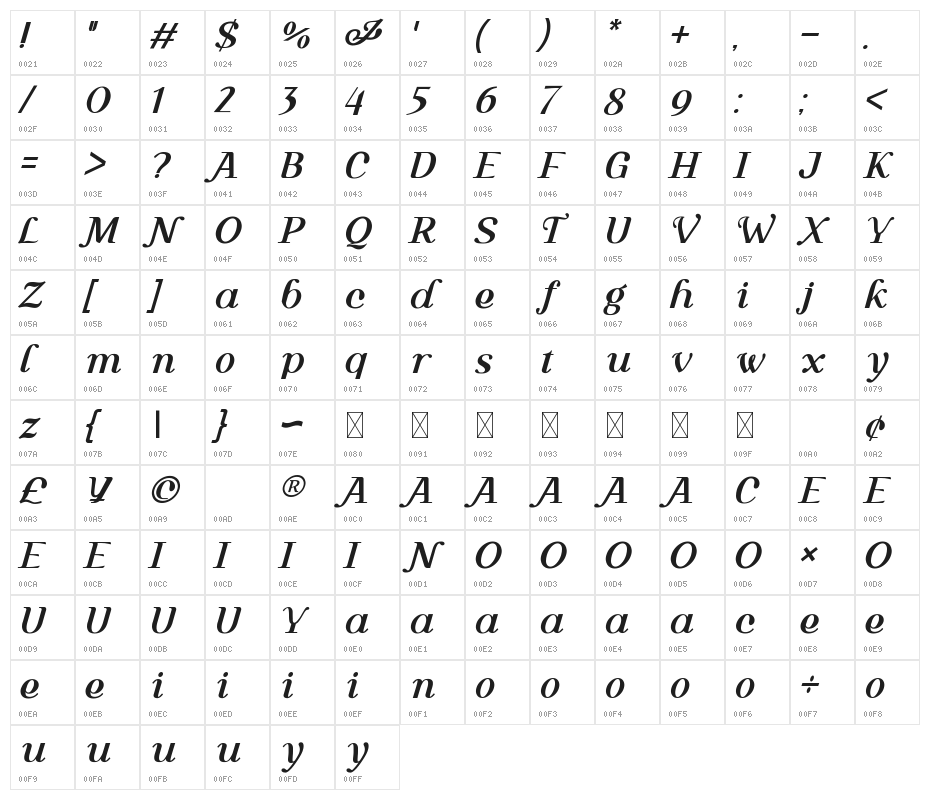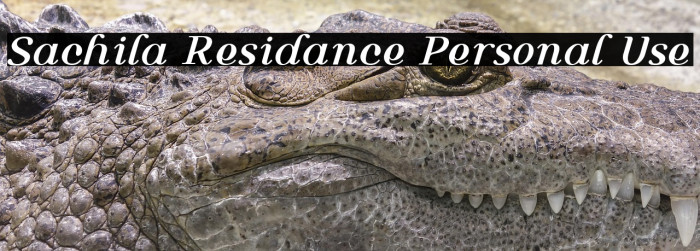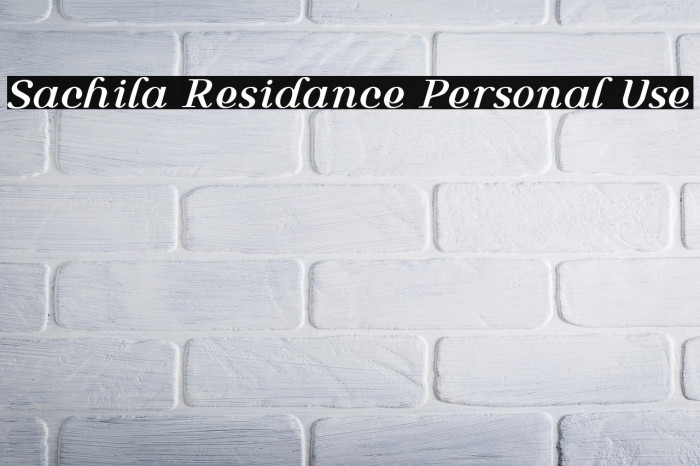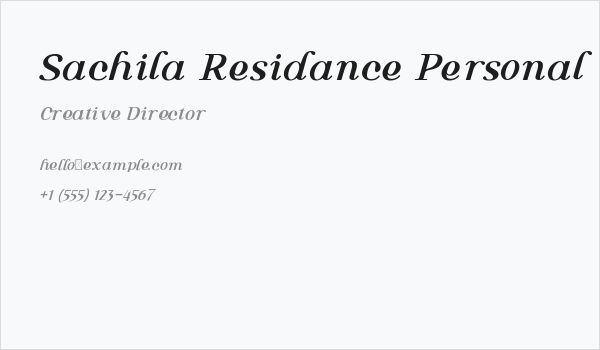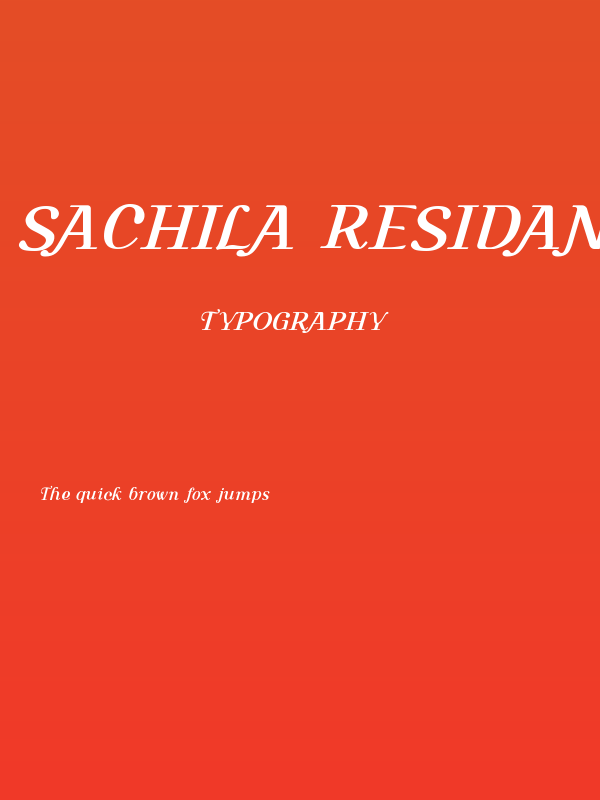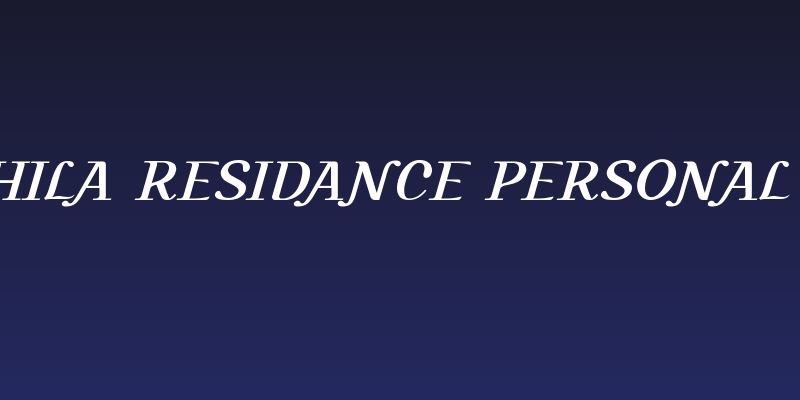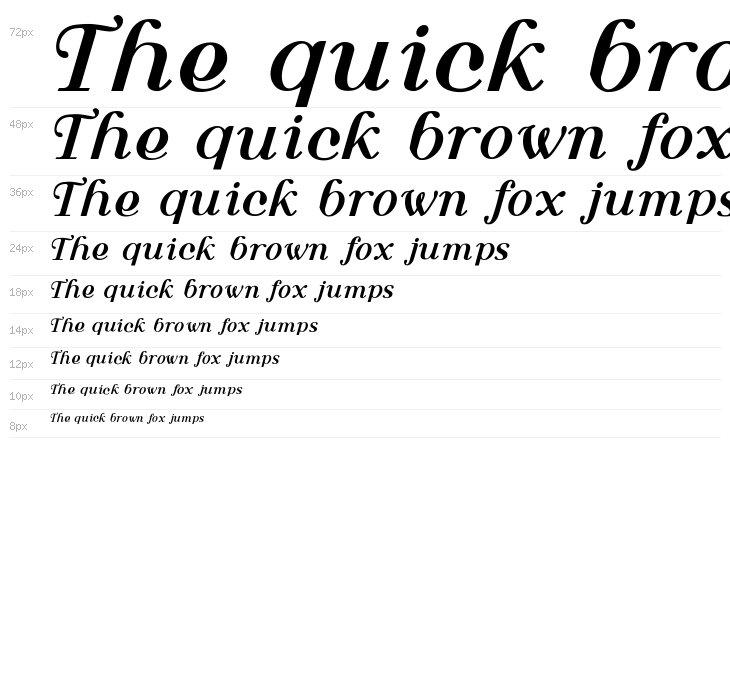
Sachila Residance Personal Use Font
Sachila Residance Personal Use Description
This font features a dynamic and elegant script style, characterized by its flowing and slightly slanted letterforms. The uppercase letters exhibit a sophisticated flair with subtle curves and a moderate contrast in stroke thickness, giving them a refined appearance. The lowercase letters maintain a consistent style, with smooth connections and a graceful rhythm. Numerals are bold and slightly italicized, complementing the overall aesthetic. Special characters are thoughtfully designed, integrating seamlessly with the alphabetic characters. The font's design is suitable for projects that require a touch of elegance and sophistication.